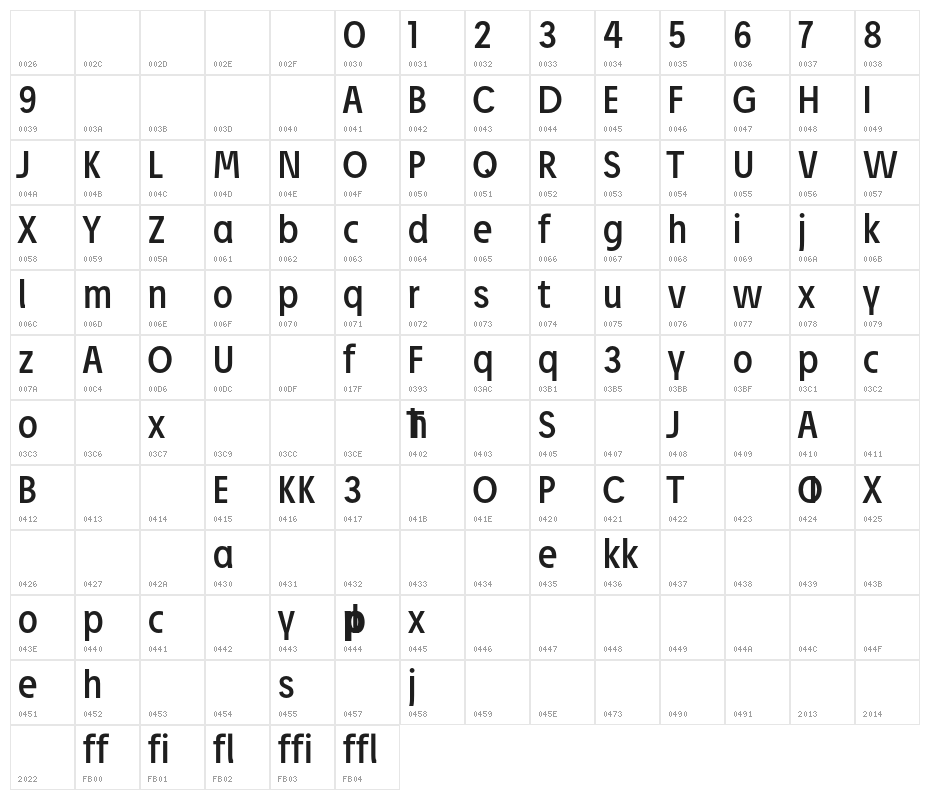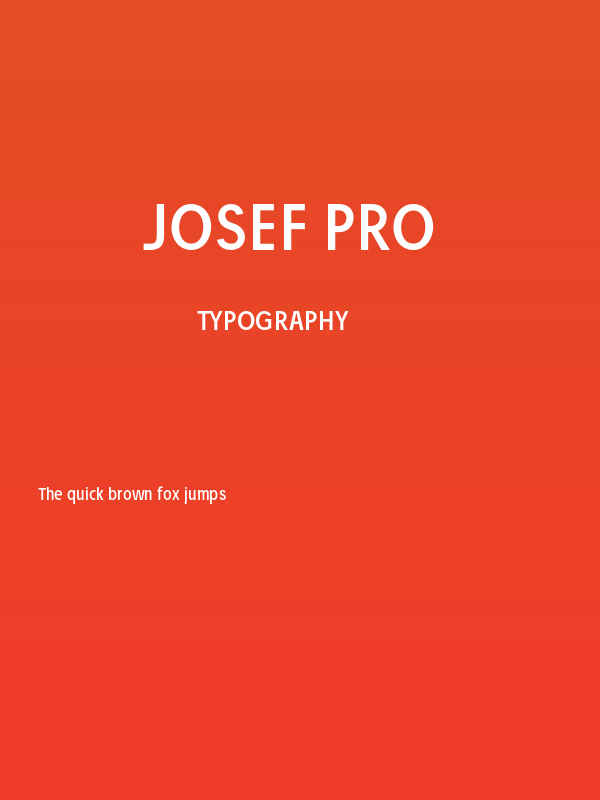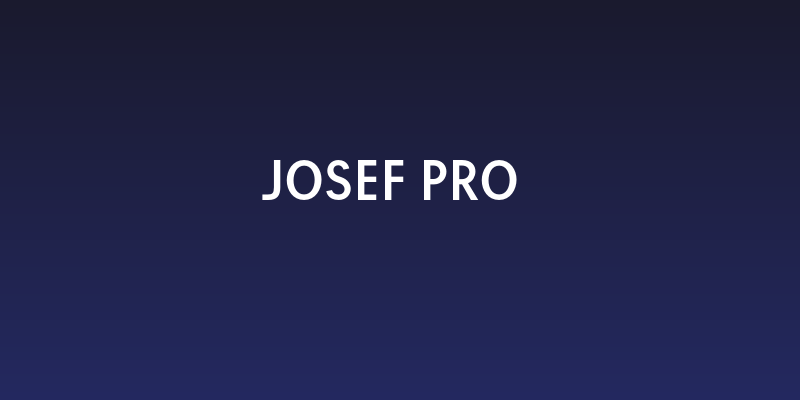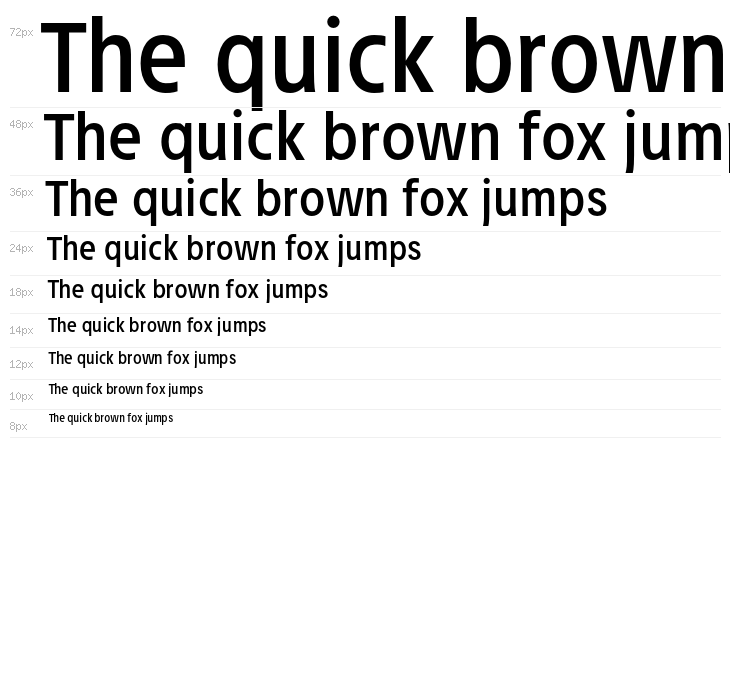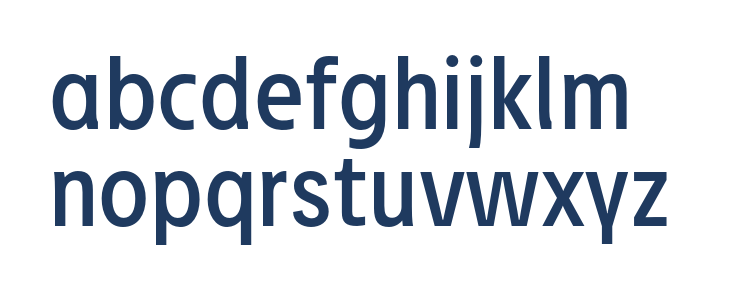
Josef Pro Font
Josef Pro Description
This typeface features a clean and modern sans-serif design, characterized by its geometric shapes and uniform stroke widths. The uppercase letters are bold and assertive, while the lowercase letters maintain a consistent height and spacing, ensuring readability. The numerals are clear and distinct, making them suitable for various applications. Special characters are designed with simplicity and clarity in mind, complementing the overall aesthetic. The font's balanced proportions and straightforward style make it versatile for both digital and print media.